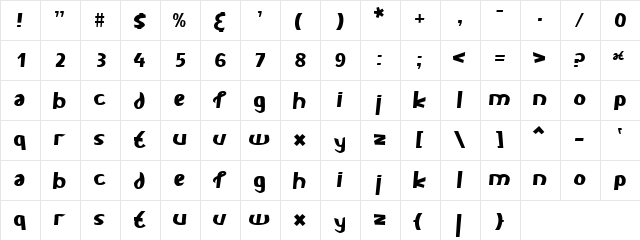
Carlie Bold
Design Context for Carlie Typeface
Carlie offers clean, dependable letterforms without strong stylistic allegiance, making it a practical choice for designers who need flexibility. Its bold stroke weight gives it real presence on the page.
Pro Tip: Use Carlie in both headline and body roles to test its range before committing to a single application.